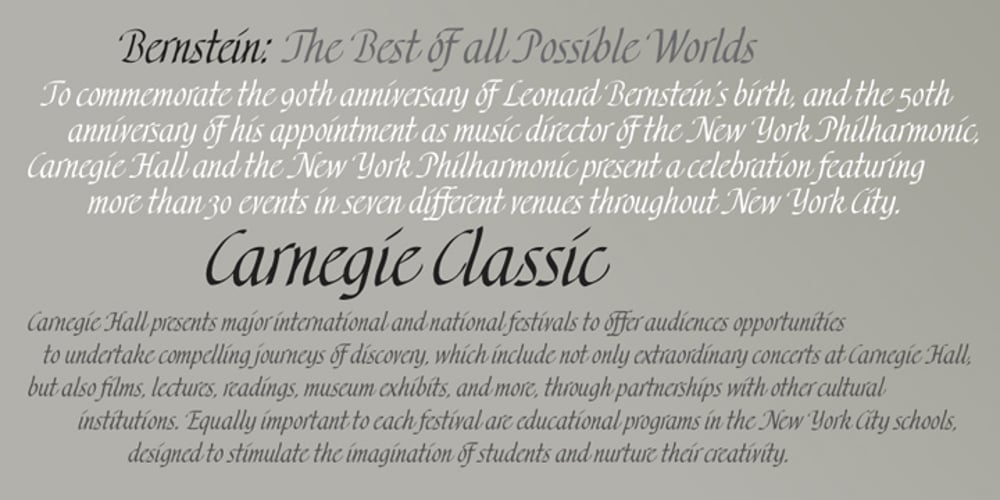
Carnegie Classic
Carnegie Classic Font Family was designed by published by Wilton Foundry. Carnegie Classic contains 1 styles and family package options. Carnegie Classic differs from Carnegie 1 & 2 in that the capital letters are larger in height; several connecting strokes and letter shapes have also been refined. Classic also has many more ligatures and is only available in Open Type. Like Carnegie 1 & 2, Classic is a based on my own functional hand lettered calligraphy. Characters are disciplined yet fluid and spontaneous, creating a unique overall texture that is visually very pleasing. Carnegie Classic is ideally suited for wedding and event invitations, certificates, maps, menus, place cards, announcements, memorial documents, titles, testimonials, birth and death certificates, etc. In the gallery is a an image with all the ligatures available in Open Type.